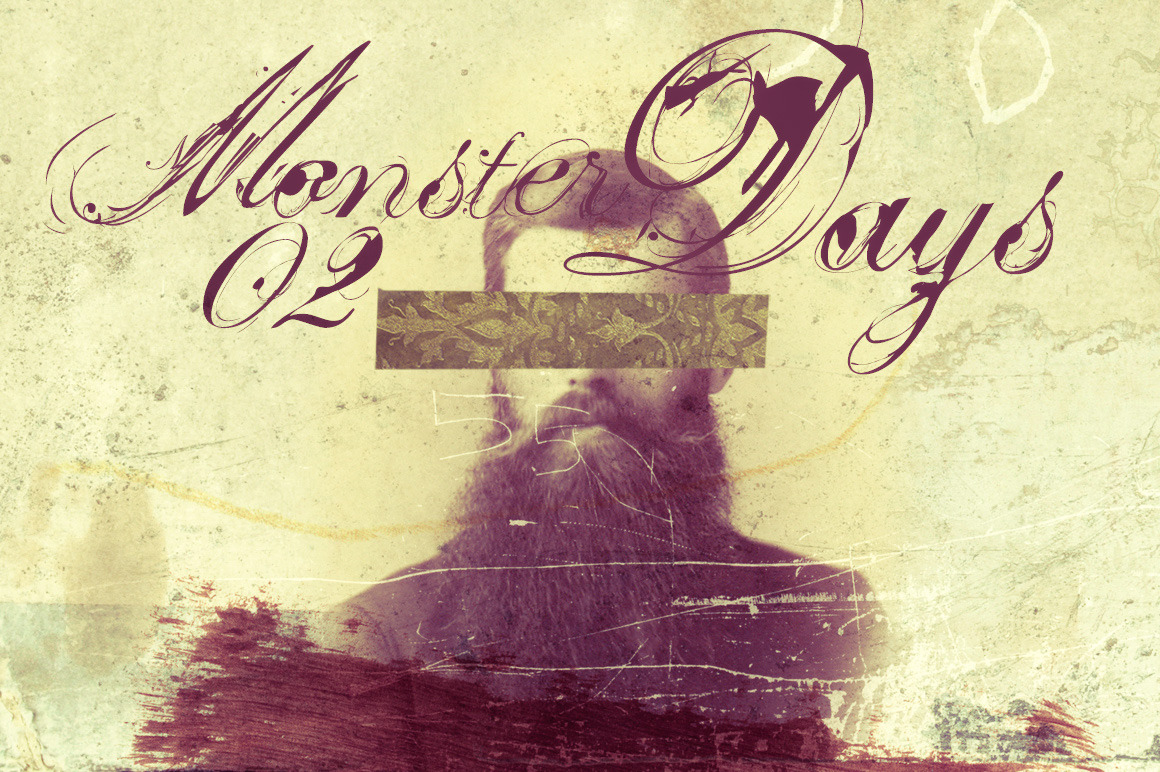
Monster Days is a grunge script font with several swashes and overlays! This typeface is perfect for band artwork or any other edgy work that asks for a powerfull and subversive look! The family has 2 styles: regular and alternate.
The typeface also comes with and EPS vector set with 16 ornaments!